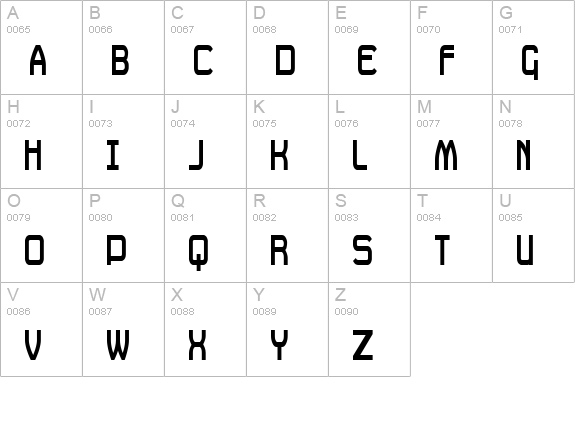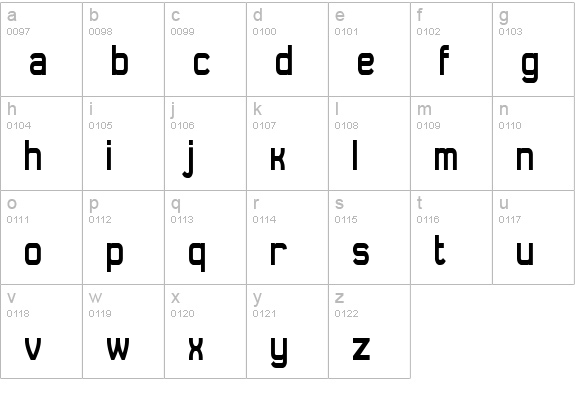
Daville Condensed Font Details
Daville Condensed is a distinctive, condensed-width variant in the Daville typeface family \xE2\x80\x94 well suited to design and typography projects.
Daville Condensed font is a sleek and modern typeface that exudes sophistication and elegance. With its clean lines and condensed letterforms, this font is perfect for creating a striking visual impact in any design project. The tall and narrow characters of Daville Condensed font make it ideal for headlines, logos, and branding materials. What sets Daville Condensed font apart is its versatility - it can be used in a variety of design applications, from print materials to digital projects. Whether you're designing a sleek website or a minimalist poster, Daville Condensed font will add a touch of sophistication to your work. Best of all, Daville Condensed font is available for free download at FontsMarket.com. So you can easily get your hands on this stylish typeface and start using it in your projects right away. Don't miss out on the opportunity to elevate your designs with the timeless elegance of Daville Condensed font.